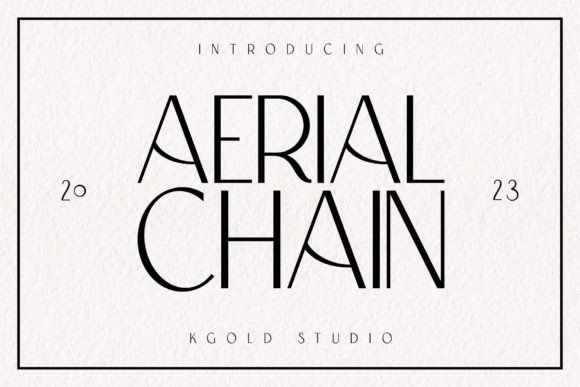
Introducing Aerial Chain Font, the modern and stylish sans-serif font that will elevate your designs to the next level. Created by Kgold, this font is masterfully crafted to become a true favorite among designers.
With its contemporary and fresh design, Aerial Chain Font is perfect for any creative project. Its clean lines and bold characters will make your designs stand out and catch the eye of your audience.
Whether you're creating a new logo, designing a website, or crafting social media graphics, Aerial Chain Font will add a touch of sophistication to your work. Its versatility allows it to work seamlessly in any context, making it a must-have for any designer's toolkit.
But don't just take our word for it. Download Aerial Chain Font today and experience the power of its modern and stylish design for yourself. With its smooth curves and elegant appearance, it will add a touch of class to any project.